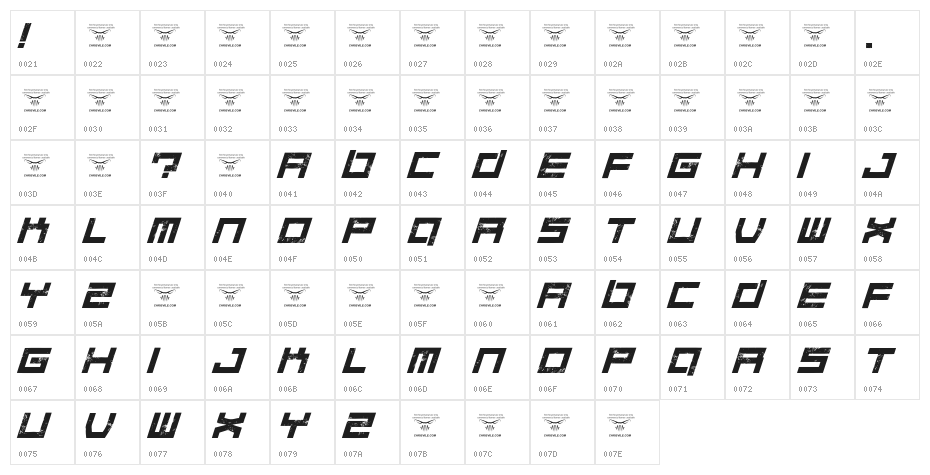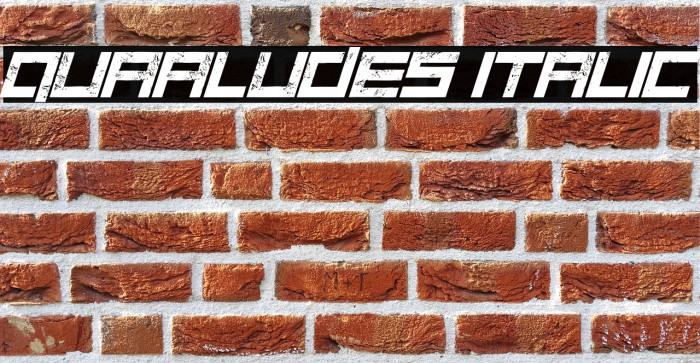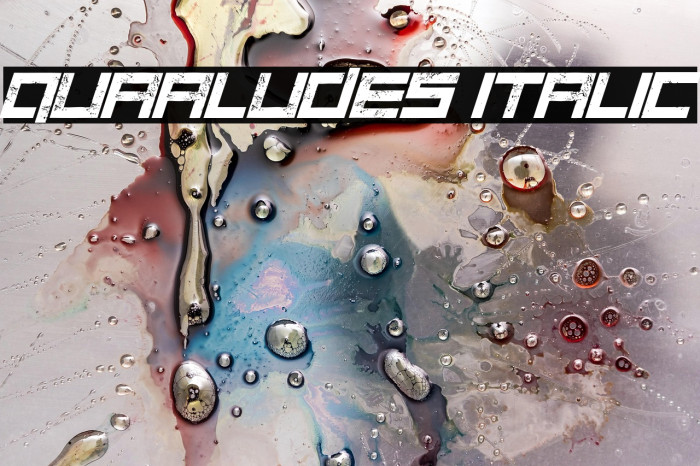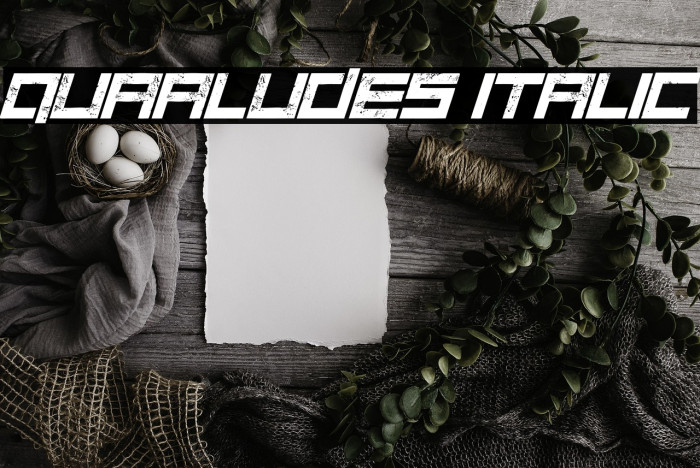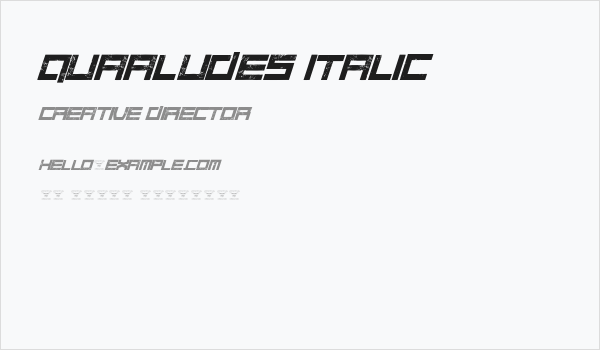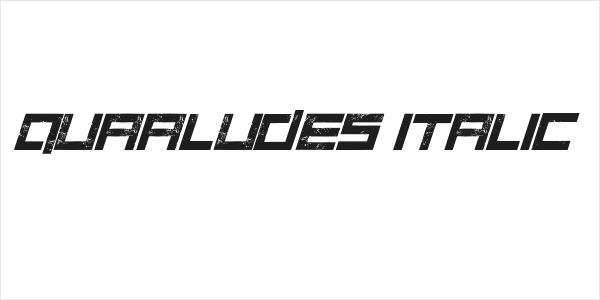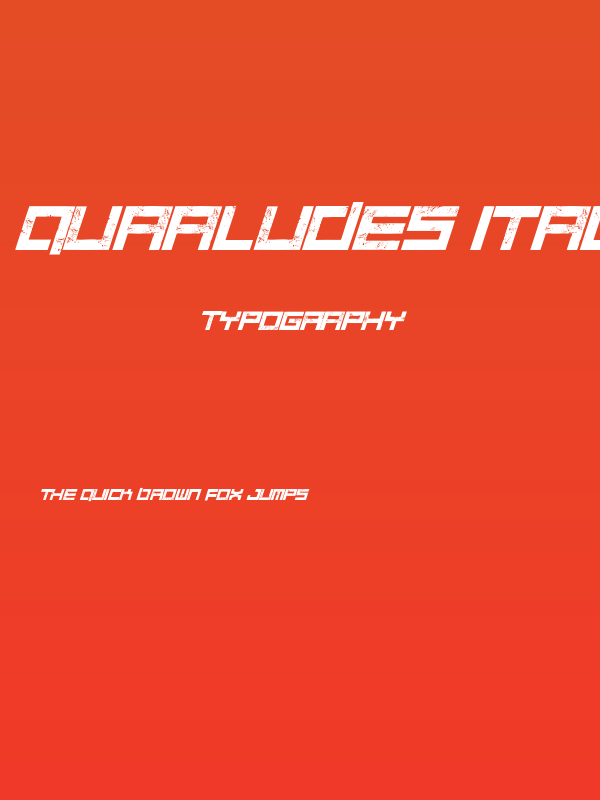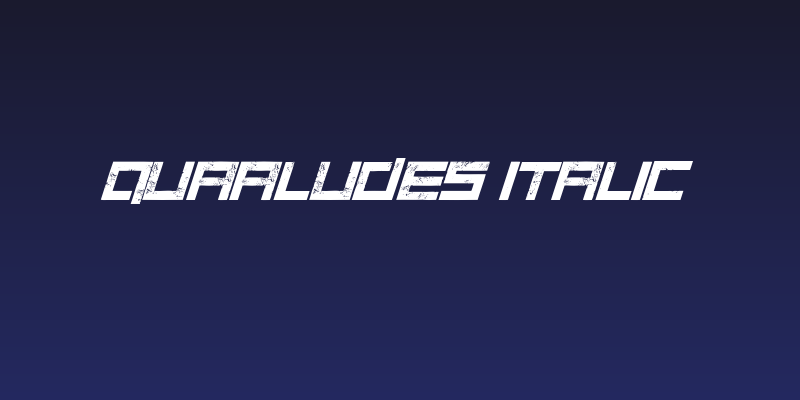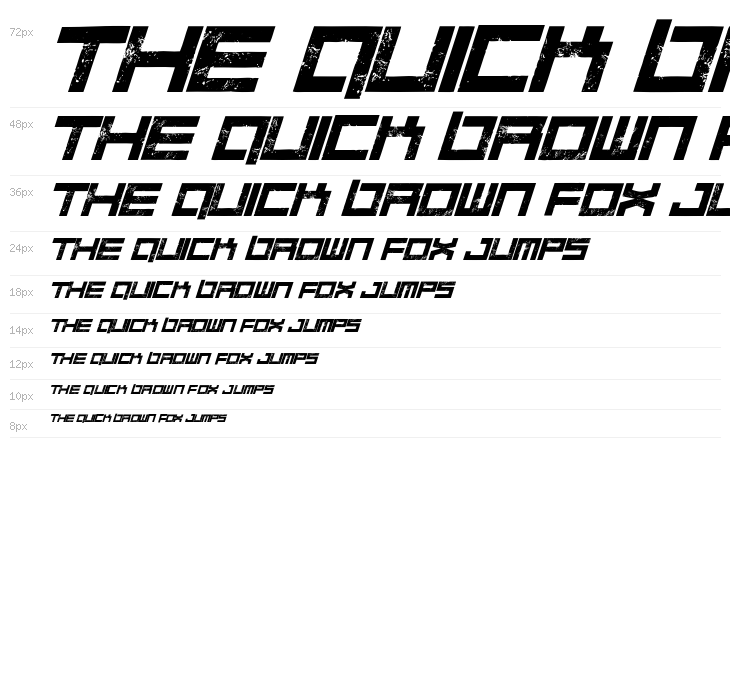
Quaaludes Italic Font
Quaaludes Italic Description
This font features a bold, italicized style with a distressed texture that gives it a rugged, edgy appearance. The characters are angular and geometric, with sharp edges and a futuristic feel. The uppercase letters are uniform in height, while the lowercase letters maintain a consistent style. The numbers and special characters follow the same design principles, ensuring a cohesive look across all elements. The distressed effect adds a vintage or grunge aesthetic, making it suitable for projects that require a bold statement.
| Overall Style | Futuristic, Grunge |
| Proposed Projects | Ideal for posters, album covers, video game graphics, and branding that requires a bold, edgy look. |